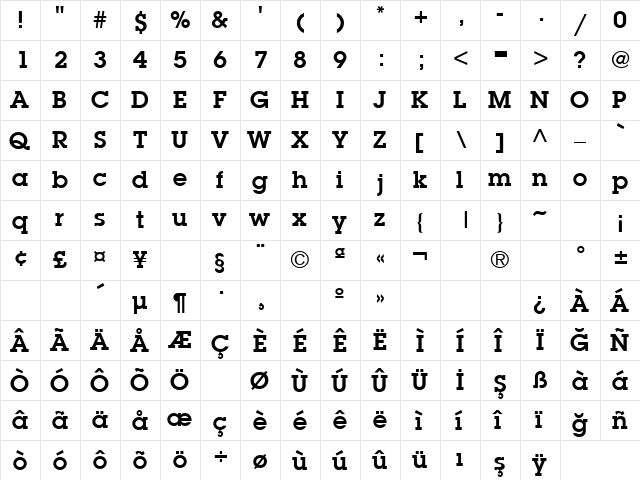
TR McLean Bold
Design Context for TR McLean Typeface
TR McLean offers clean, dependable letterforms without strong stylistic allegiance, making it a practical choice for designers who need flexibility. Its bold stroke weight gives it real presence on the page.